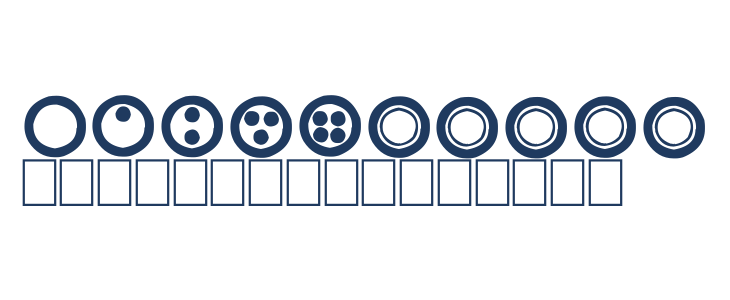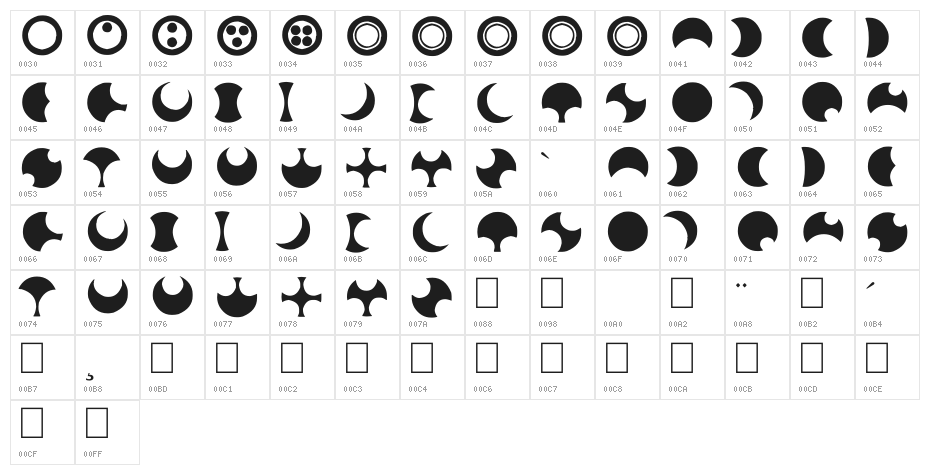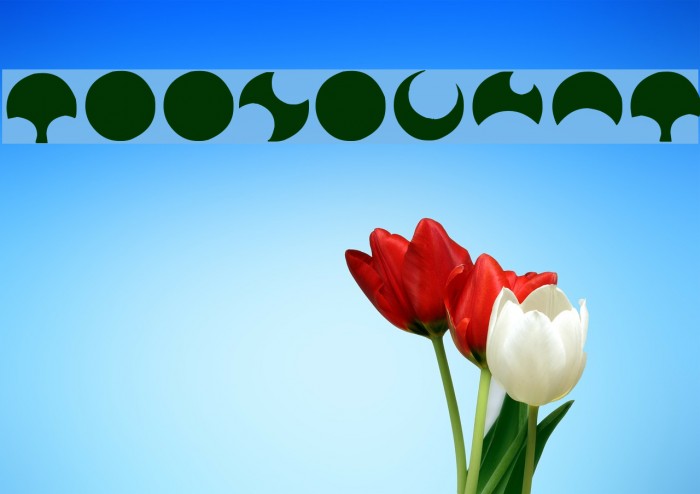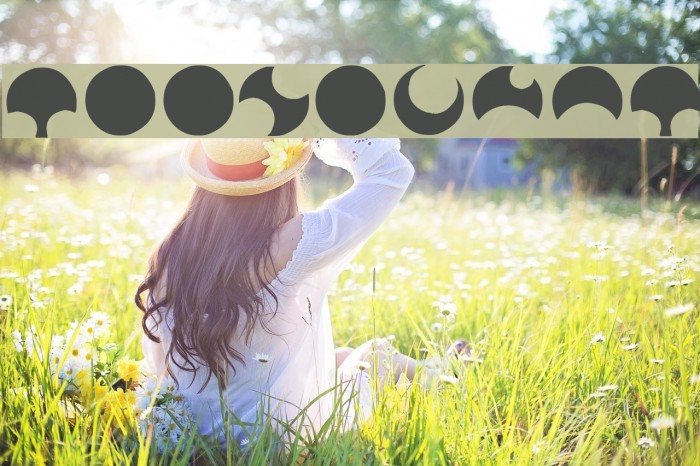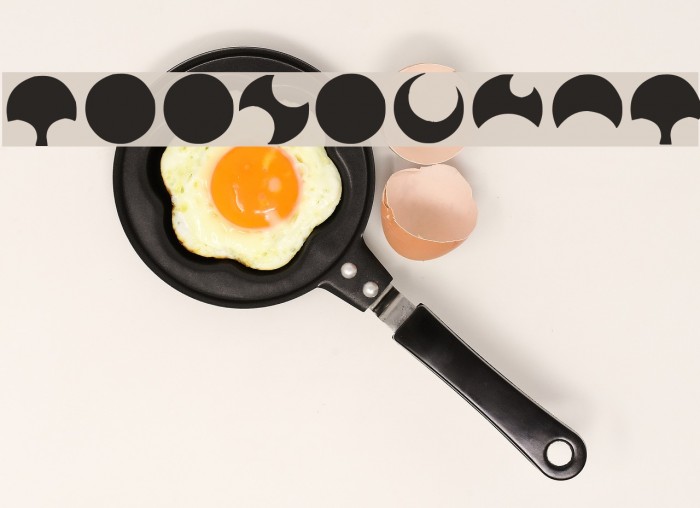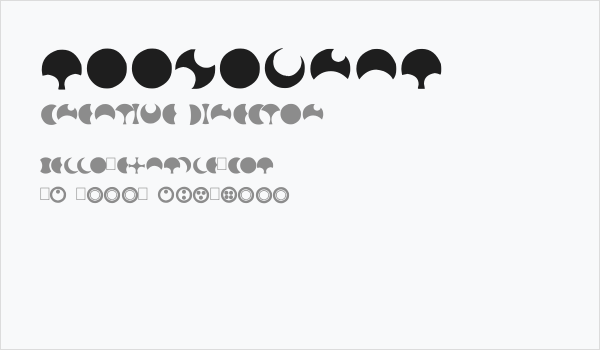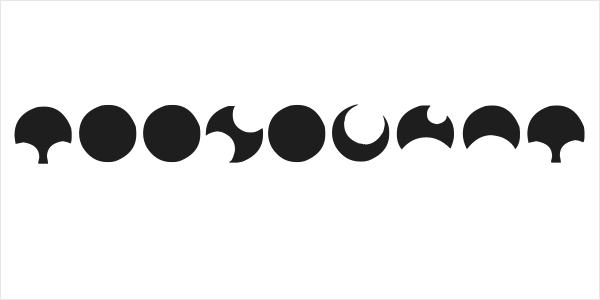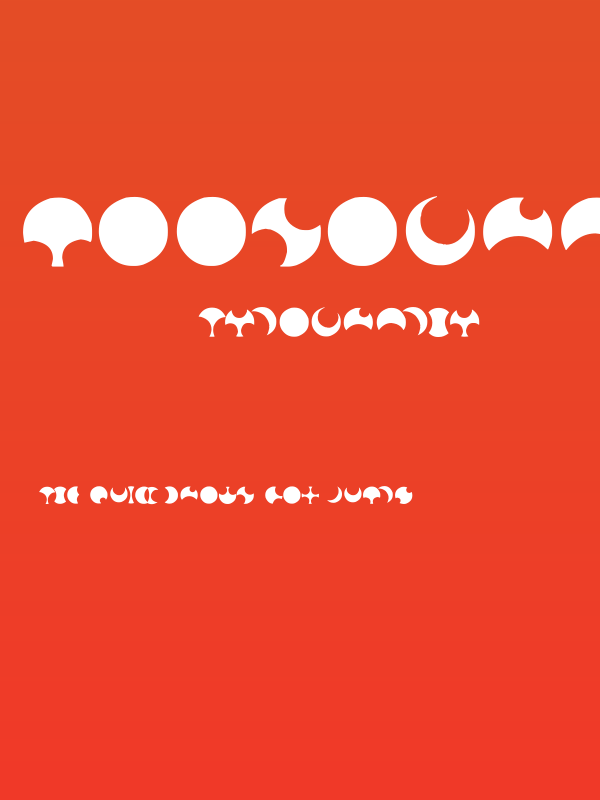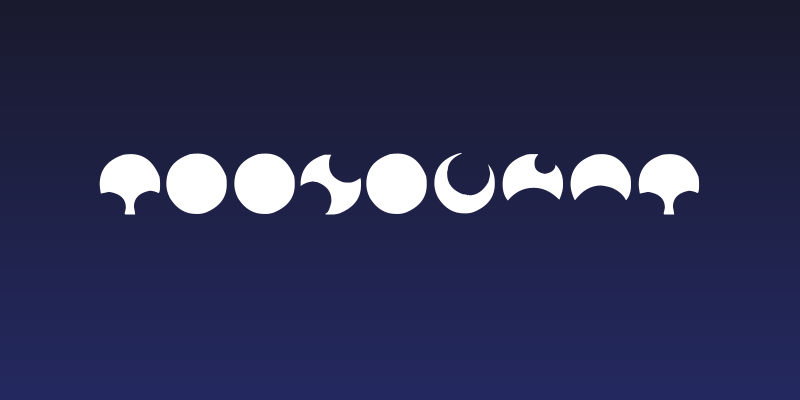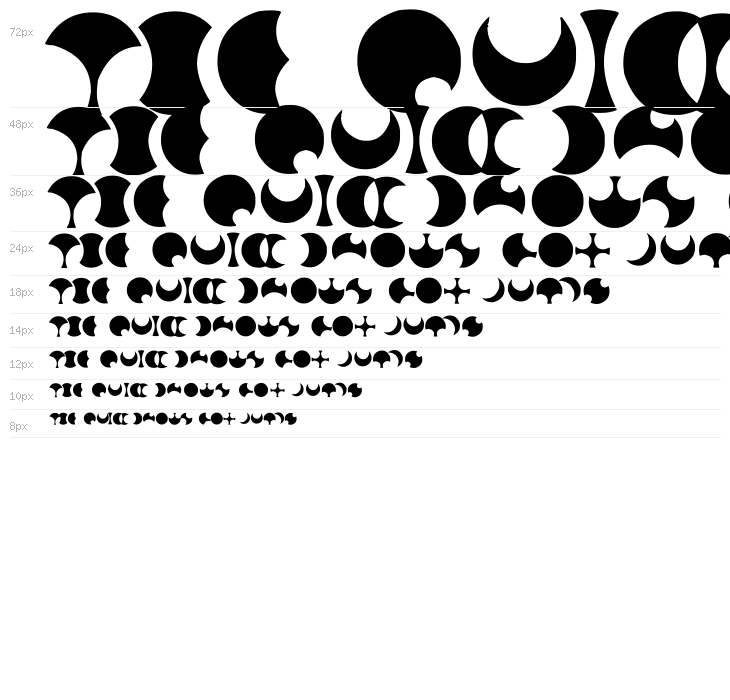
Moonogram Font
This font features a unique and artistic design inspired by lunar phases and celestial shapes. Each character is crafted with a combination of crescent and circular forms, creating a visually striking and abstract appearance. The design is bold and highly decorative, making it ideal for projects that require a touch of whimsy and creativity. The characters are not traditional alphanumeric symbols but rather artistic representations that evoke a sense of mystery and intrigue. This font is perfect for use in artistic projects, branding, and any creative endeavor that seeks to capture the beauty of the night sky.
| Use Case | Logos, Artistic projects, Branding |
| Proposed Projects | Ideal for artistic projects, branding, logos, and creative designs that evoke celestial themes. |